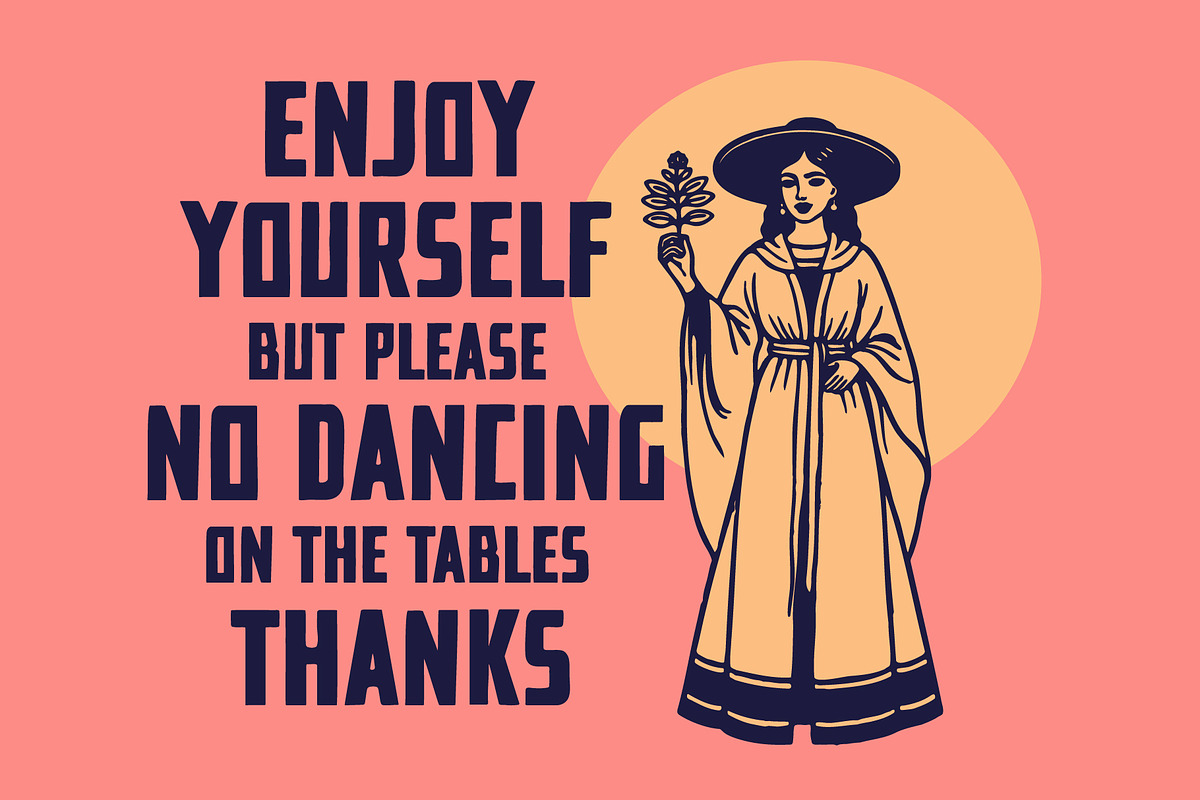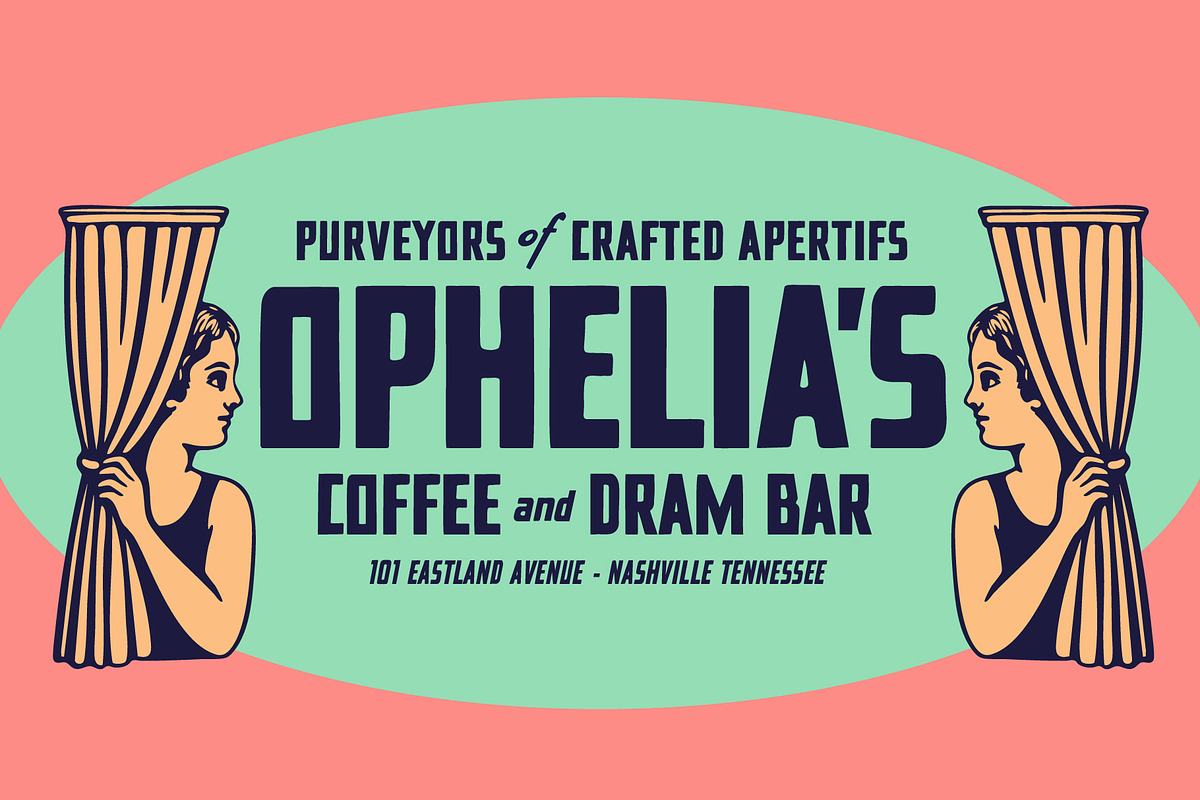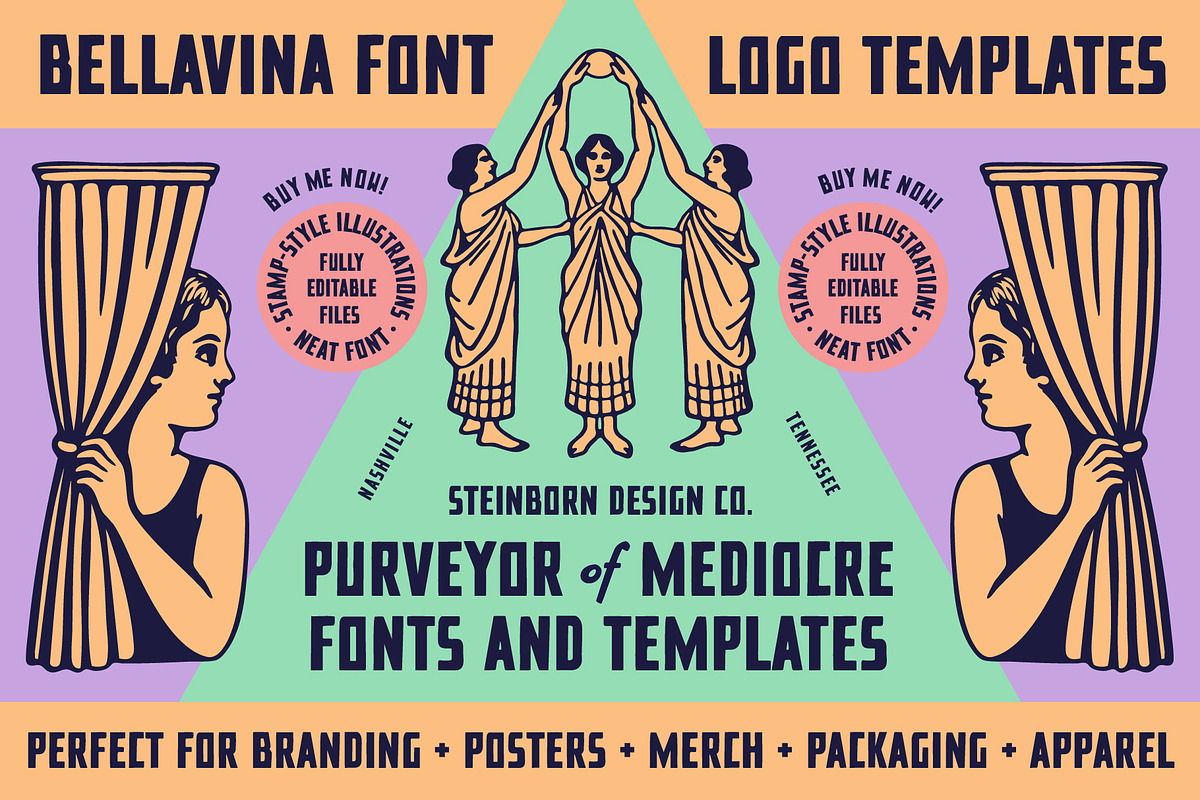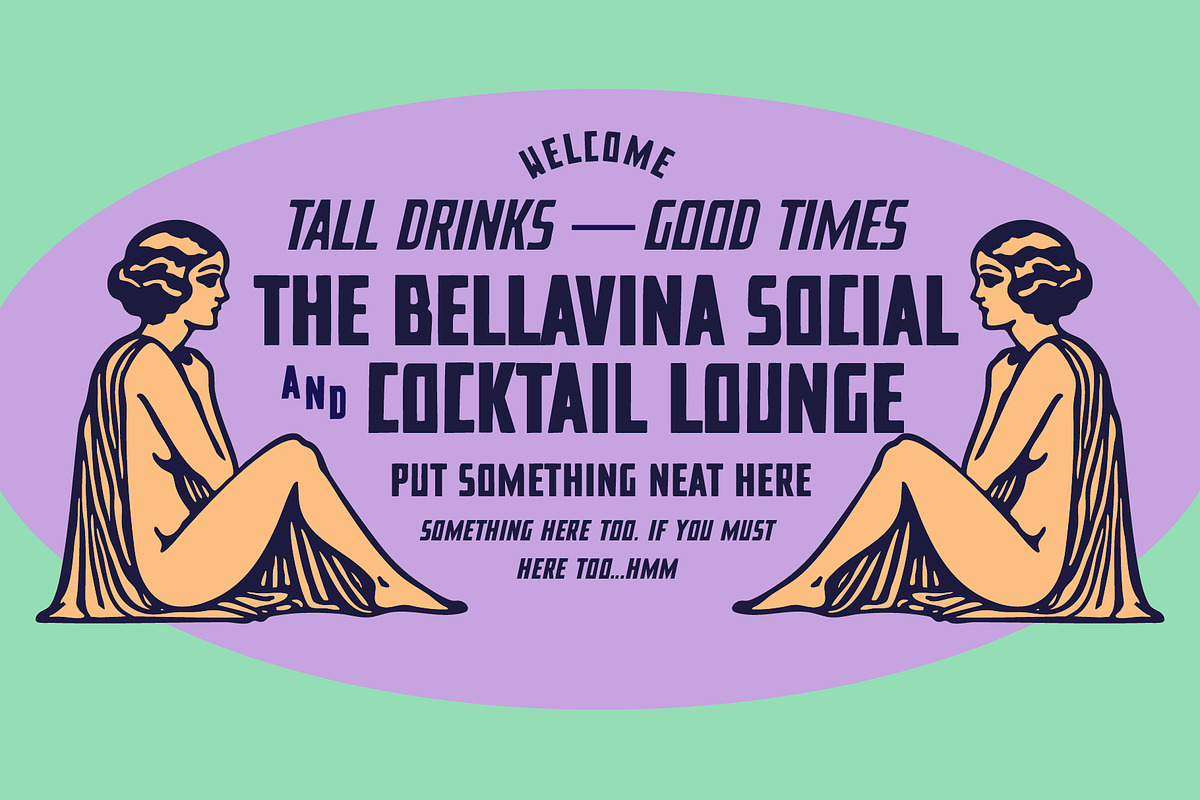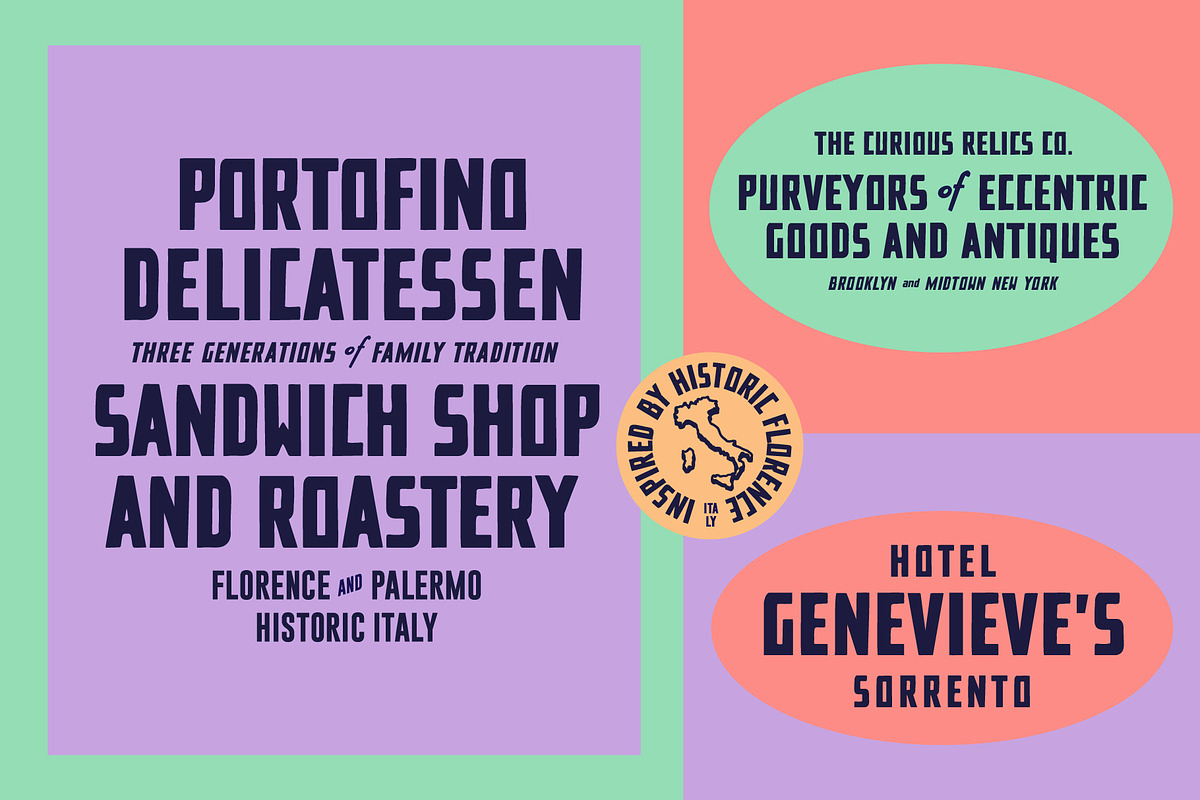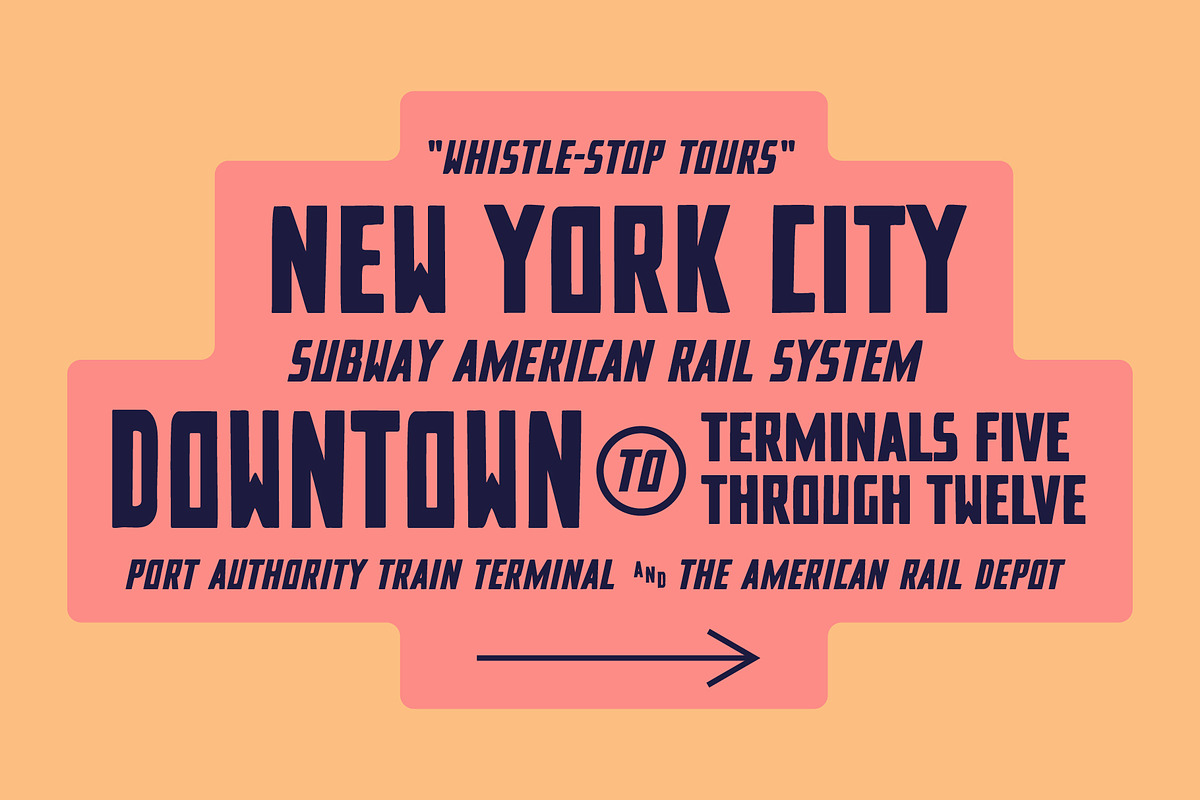
Bellavina Font and Logo Templates
Say hello to Bellavina — a bold, vintage-inspired font. It’s dramatic. It’s confident. Paired with fully editable logo templates. Think vintage theatre posters. Think classy-but-bold.
- Branding that needs a little drama
- Posters that want attention
- Merch that wants compliments
- Packaging that says “vintage” even if it’s not
- Stamp-style badge layouts for that “official and historic” vibe
- Clean vector illustrations
- Fully customizable text + colors + layout Basically: you plug in your brand name and boom, pow, whammy